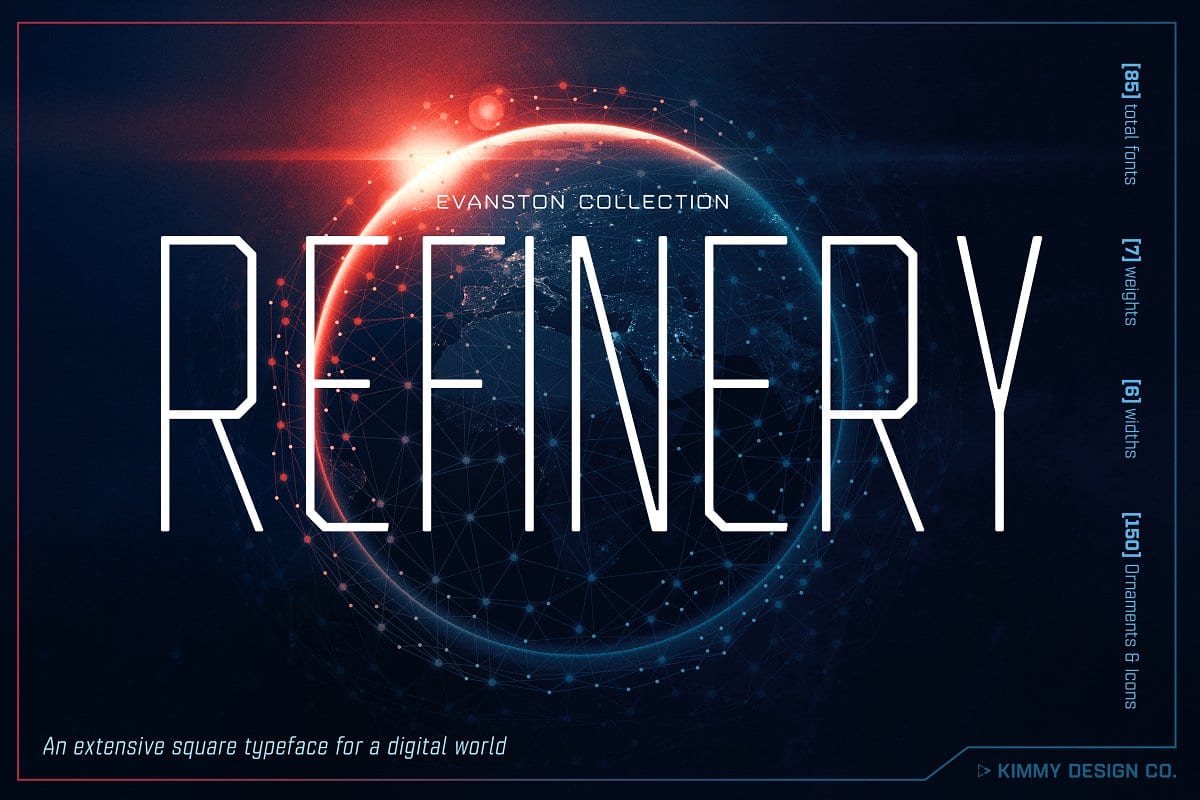
Refinery Font Free Download - Download otf (offsite) z y m m clarika the refinery 4 styles. This sans serif typeface was designed by. Web the font refinery 35 bold is an excellent choice for fun and creative designs.
This sans serif typeface was designed by. Web the font refinery 35 bold is an excellent choice for fun and creative designs. Download otf (offsite) z y m m clarika the refinery 4 styles.
Web the font refinery 35 bold is an excellent choice for fun and creative designs. Download otf (offsite) z y m m clarika the refinery 4 styles. This sans serif typeface was designed by.
Download otf (offsite) z y m m clarika the refinery 4 styles. This sans serif typeface was designed by. Web the font refinery 35 bold is an excellent choice for fun and creative designs.
This sans serif typeface was designed by. Download otf (offsite) z y m m clarika the refinery 4 styles. Web the font refinery 35 bold is an excellent choice for fun and creative designs.
Web the font refinery 35 bold is an excellent choice for fun and creative designs. Download otf (offsite) z y m m clarika the refinery 4 styles. This sans serif typeface was designed by.
This sans serif typeface was designed by. Web the font refinery 35 bold is an excellent choice for fun and creative designs. Download otf (offsite) z y m m clarika the refinery 4 styles.
Web the font refinery 35 bold is an excellent choice for fun and creative designs. This sans serif typeface was designed by. Download otf (offsite) z y m m clarika the refinery 4 styles.
This sans serif typeface was designed by. Web the font refinery 35 bold is an excellent choice for fun and creative designs. Download otf (offsite) z y m m clarika the refinery 4 styles.
Download otf (offsite) z y m m clarika the refinery 4 styles. Web the font refinery 35 bold is an excellent choice for fun and creative designs. This sans serif typeface was designed by.
Web The Font Refinery 35 Bold Is An Excellent Choice For Fun And Creative Designs.
This sans serif typeface was designed by. Download otf (offsite) z y m m clarika the refinery 4 styles.